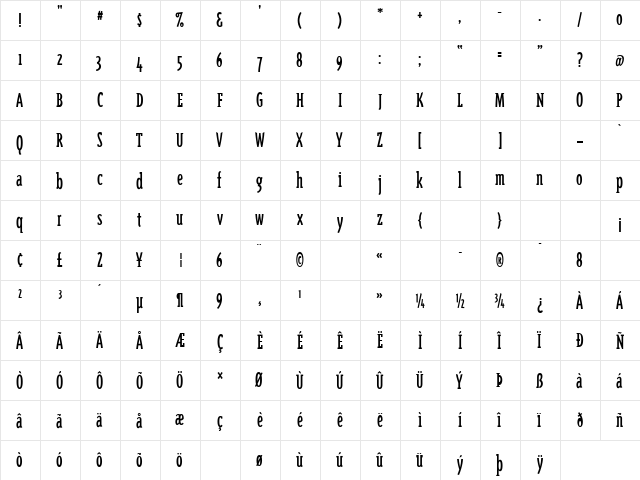
Triplex Cond Serif Regular Font Preview
Triplex Cond Serif Regular
Design Context for Triplex Cond Serif Typeface
Triplex Cond Serif carries the refined structure of traditional serif typography, with bracketed terminals and considered proportions that communicate credibility and craft. The condensed width makes it efficient for tight spaces without sacrificing legibility.